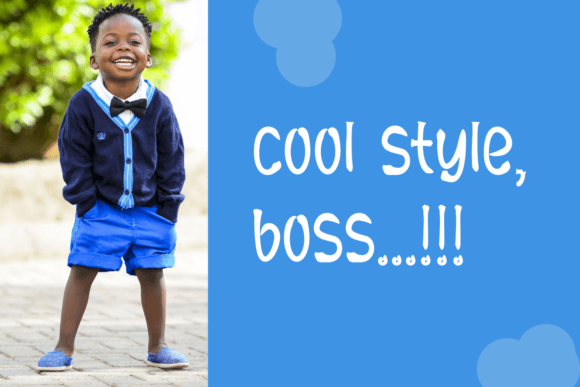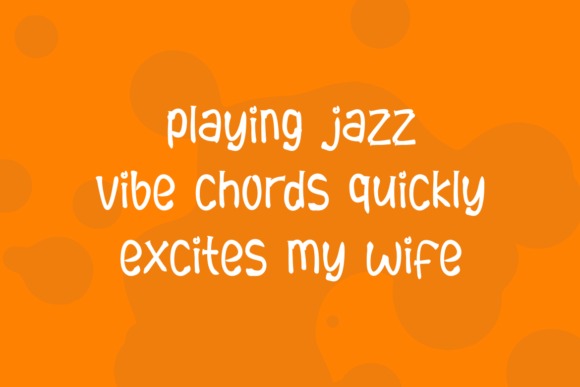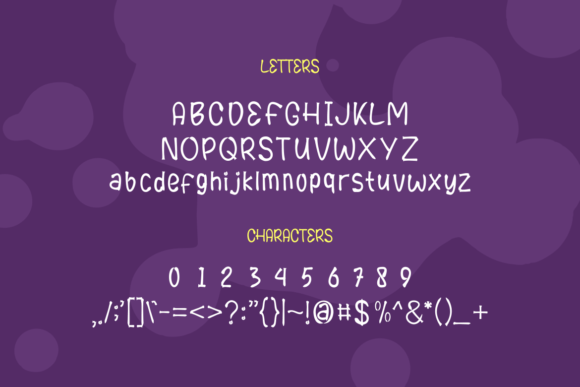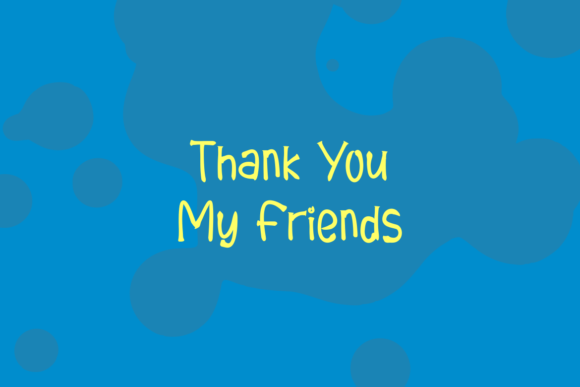
Bramlox Brush Font: Elevate Your Designs with Effortless Elegance
In the world of typography, fonts play a crucial role in conveying the tone and personality of a design. For designers and crafters seeking a unique and captivating font, Bramlox Brush is an excellent choice. This thin and casual handwritten font exudes effortless elegance, making it perfect for a wide range of design projects.
The Characteristics of Bramlox Brush
Bramlox Brush is a beautifully crafted font that captures a sense of free-spirited creativity. Its fluid strokes and natural flow give it a distinctive, hand-written feel that is both charming and sophisticated. The delicate lines and stylish curves of this font lend a modern touch to any design, making it ideal for invitations, social media graphics, branding, and more.
Key Features of Bramlox Brush Font
- Thin and Casual: Bramlox Brush boasts a thin and casual appearance, perfect for designs that require a touch of elegance and refinement.
- Handwritten Style: The font’s handwritten style gives it a unique, personal feel that sets it apart from more traditional fonts.
- Fluid Strokes: The fluid strokes of Bramlox Brush create a sense of movement and flow, adding a dynamic touch to any design.
- Modern and Sophisticated: The font’s delicate lines and stylish curves lend a modern and sophisticated touch to designs, making it perfect for a wide range of applications.
Uses for Bramlox Brush Font
Bramlox Brush is a versatile font that can be used in a variety of design projects, including:
- Invitations: Add a touch of elegance and sophistication to your invitations with Bramlox Brush.
- Social Media Graphics: Use Bramlox Brush to create eye-catching social media graphics that showcase your brand’s personality.
- Branding: Incorporate Bramlox Brush into your branding materials, such as logos, business cards, and letterheads, to create a cohesive and stylish look.
- Digital and Print Media: Use Bramlox Brush in digital and print media, such as brochures, flyers, and posters, to add a touch of creativity and flair.
Tips for Using Bramlox Brush Font
To get the most out of Bramlox Brush, here are some tips to keep in mind:
- Pair with Other Fonts: Experiment with pairing Bramlox Brush with other fonts to create a unique and visually appealing combination.
- Adjust Font Size: Adjust the font size to suit your design needs, using larger sizes for headings and smaller sizes for body text.
- Play with Colors: Experiment with different colors to find the perfect match for your design, using bold and bright colors to make your text stand out.
Bramlox Brush is a beautiful and versatile font that can elevate any design project. Its effortless elegance, fluid strokes, and modern touch make it perfect for designers and crafters seeking a unique and captivating font. With its wide range of uses and applications, Bramlox Brush is an excellent addition to any design toolkit.